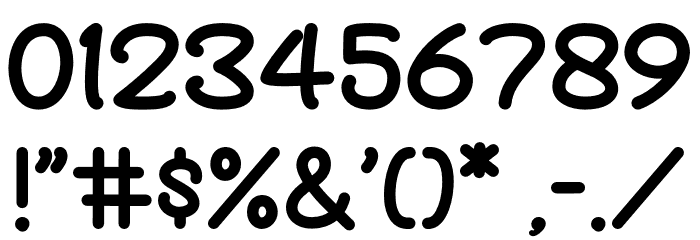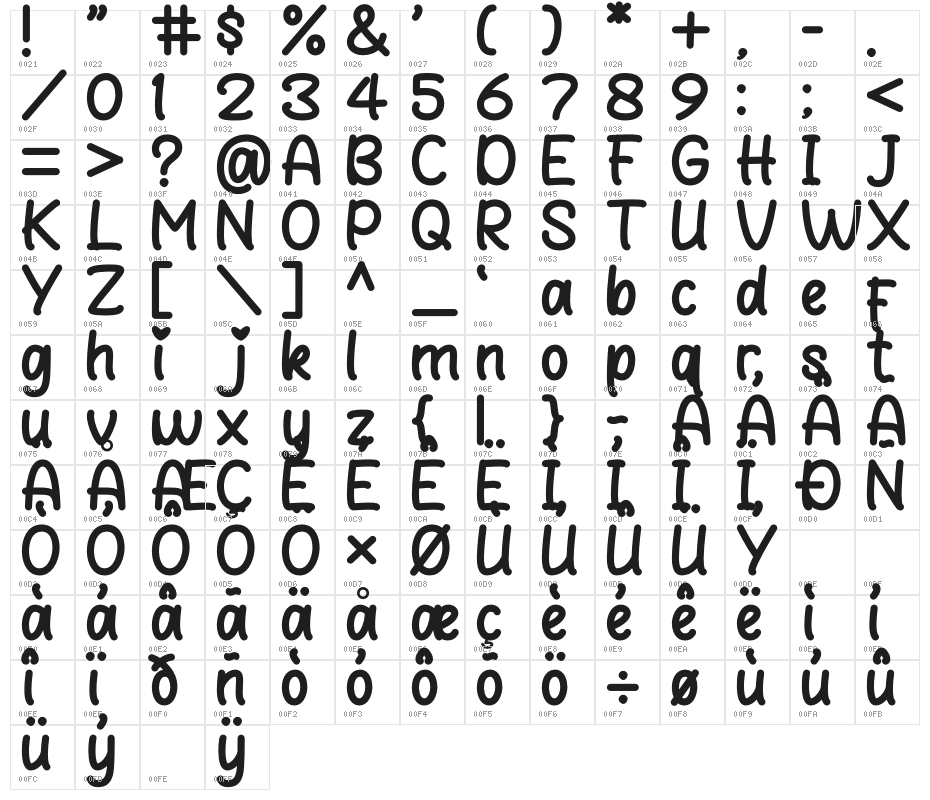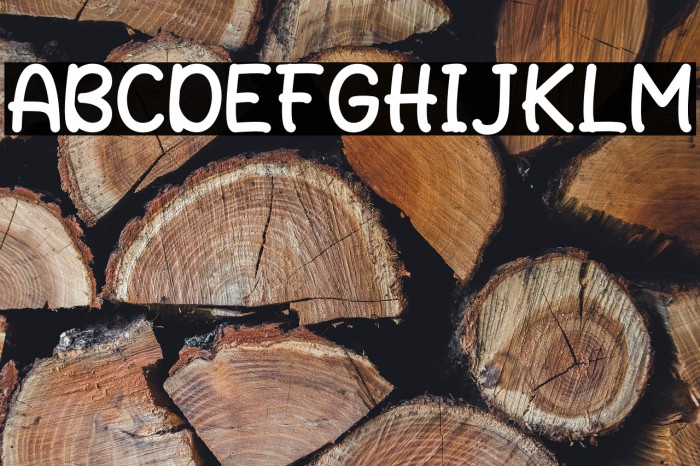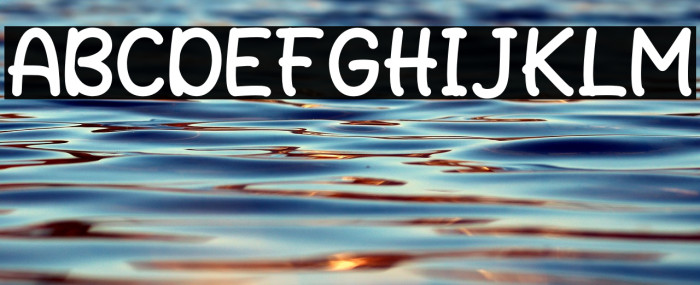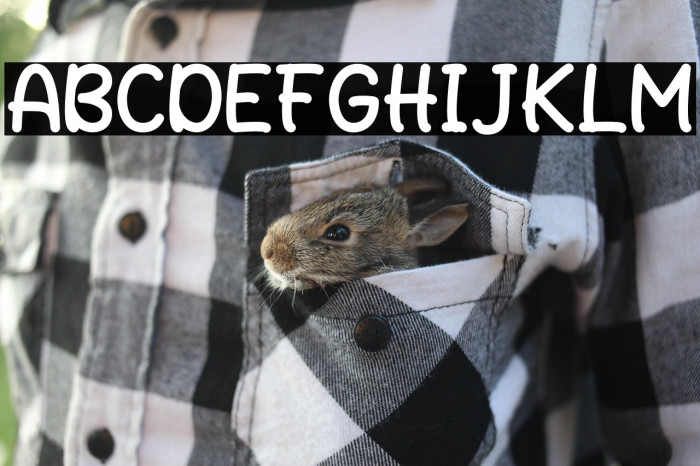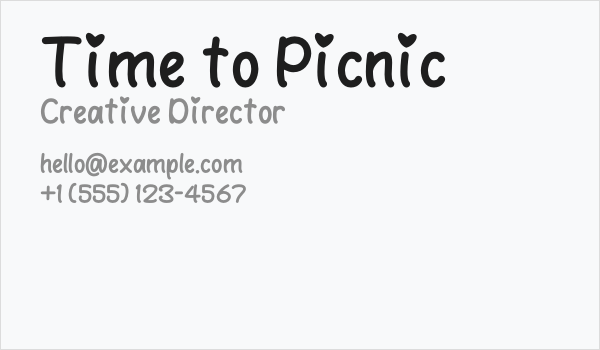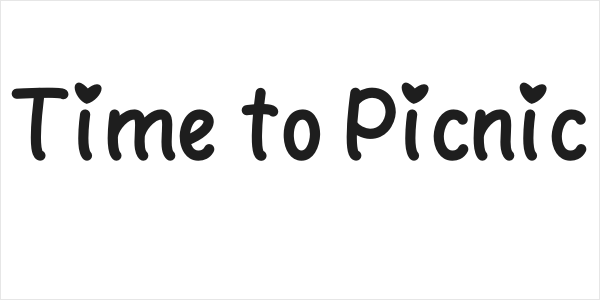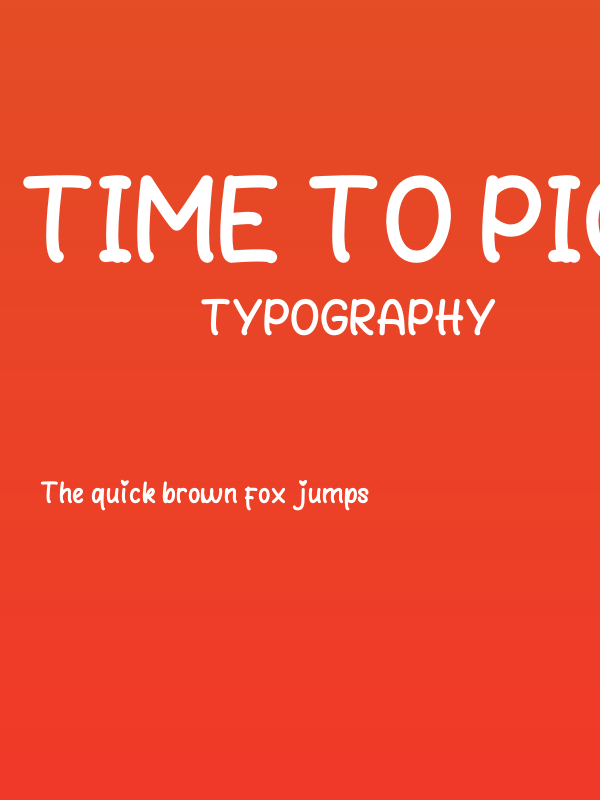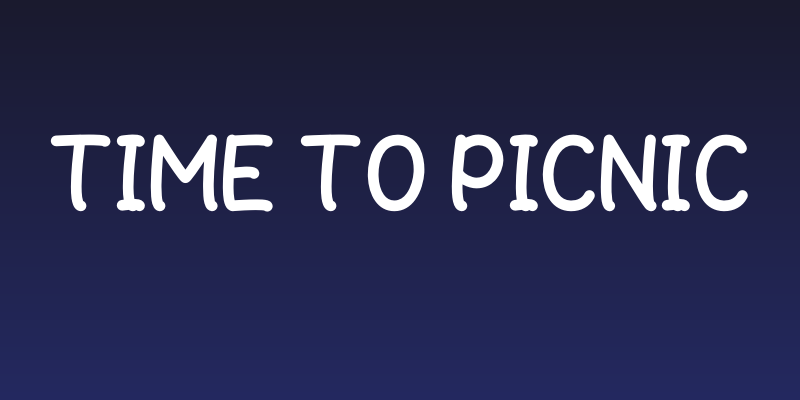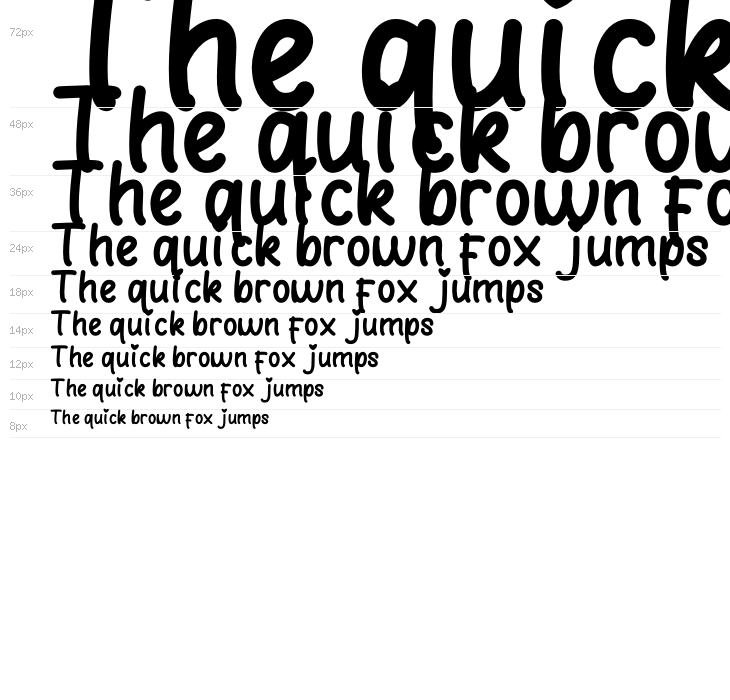
Time to Picnic Font
Time to Picnic Description
This playful and whimsical font features rounded, bubbly characters that convey a sense of fun and lightheartedness. The uppercase and lowercase letters are consistent in their rounded style, with a slight bounce that adds to the font's charm. The numbers and special characters maintain this playful aesthetic, making it suitable for informal and creative projects. The font's strokes are uniform in thickness, providing a balanced and cohesive look. Its unique style is perfect for capturing attention and adding a touch of personality to any design.
| Proposed Projects | Ideal for children's books, party invitations, playful branding, and casual social media graphics. |